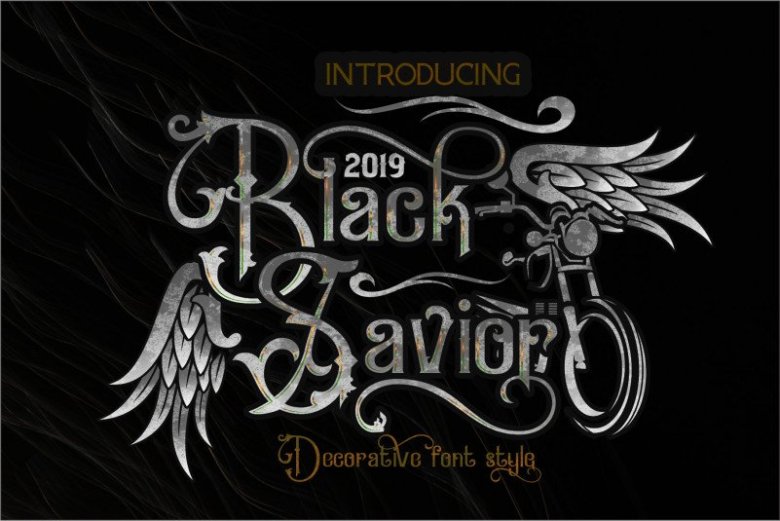
Black Savior Victorian Retro Font
Black Savior Victorian Retro Font is a display font that is used as a complement to designs with vintage themes, antique and unique classics, this font is inspired by ancient fonts.
Unique decorative and floral elements and adds to the distinctiveness of this font, this font also features the opentype feature.